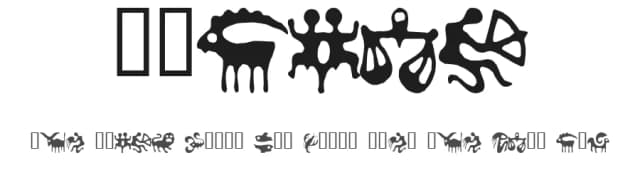
About Csenge Font
Csenge is a dingbat font designed by Fontana. It includes 129 glyphs, a regular weight, TTF (TrueType) format, and 152 languages. Csenge is free to download; check the license details on this page before commercial use. Dingbat fonts like Csenge work best for icons, ornaments, bullet points, and decorative accents.
Csenge Font is a versatile dingbats font that works for both headings and body text. Pair it with a contrasting sans-serif or serif font to add visual interest and a clear distinction between titles and body copy.
Csenge Font
by Fontana
Csenge Font is a dingbats typeface by Fontana, ideal for logos, invitations, branding, and creative projects.